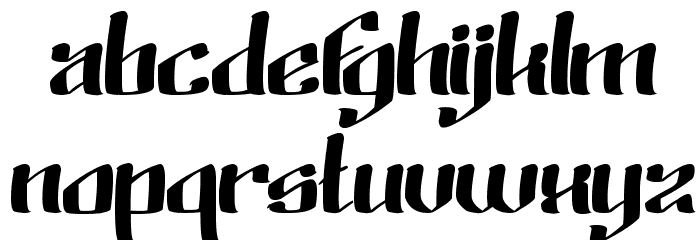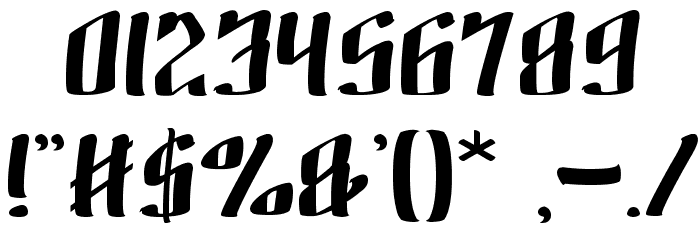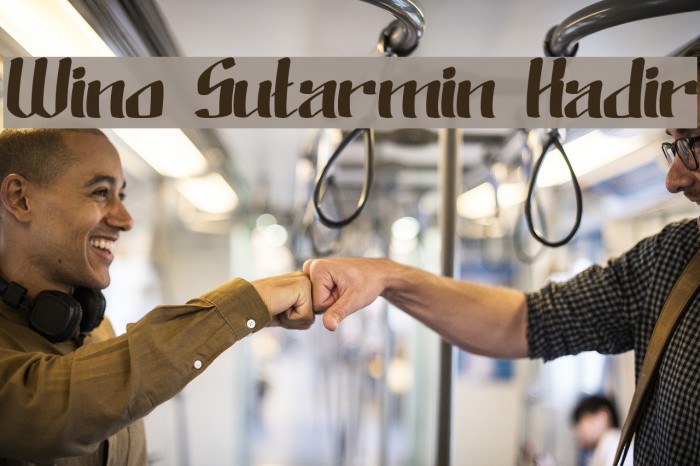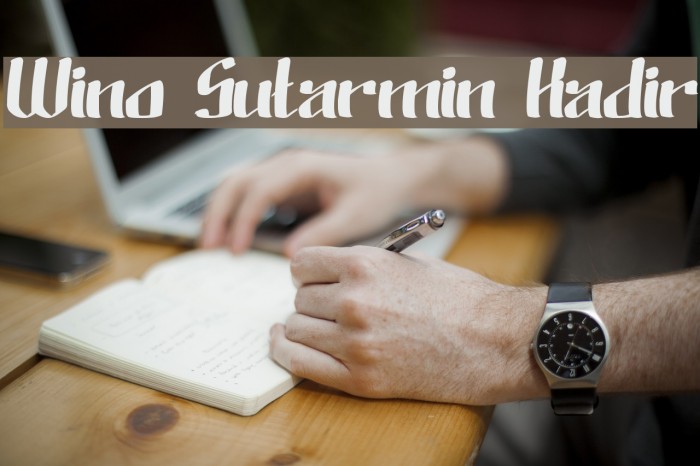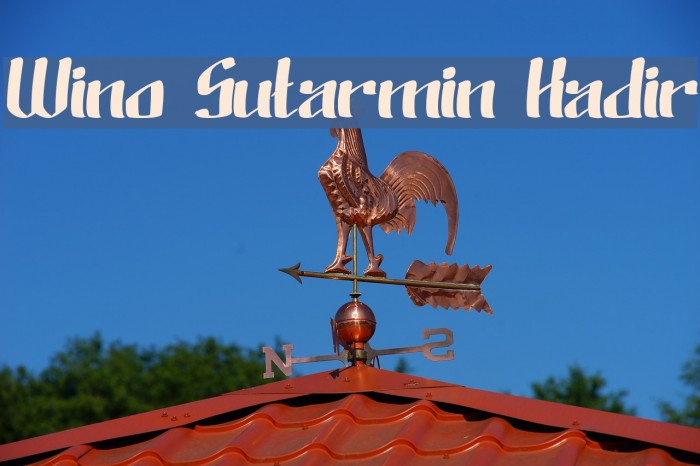
Wino Sutarmin Kadir Font
This font exhibits a bold and dynamic style with a strong calligraphic influence. The characters are crafted with a distinct flair, featuring sharp angles and a flowing, cursive-like quality. The uppercase letters are particularly striking, with a sense of movement and energy that is mirrored in the lowercase set. The numerals and special characters maintain this cohesive style, ensuring a consistent visual impact across all text. The font's boldness and unique character shapes make it suitable for attention-grabbing designs.
A bold, calligraphic font with dynamic, flowing characters.
- Proposed Projects: Ideal for branding, posters, and headlines where a strong, artistic impression is desired.